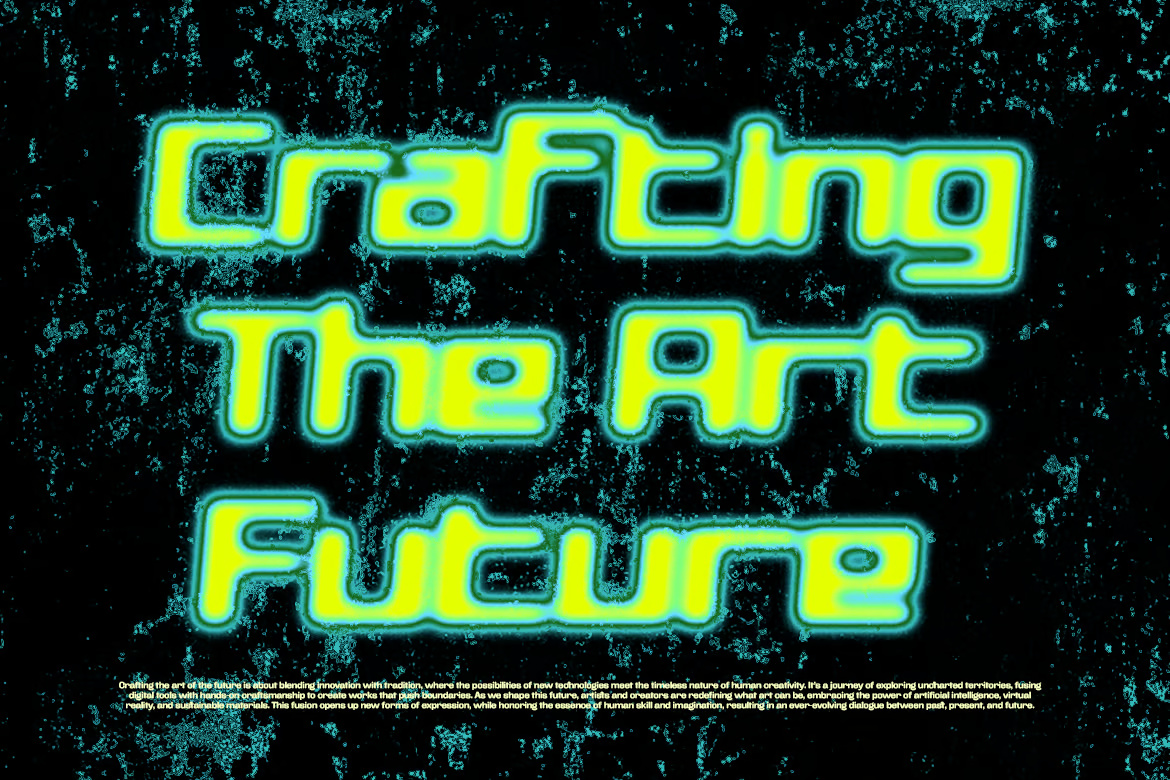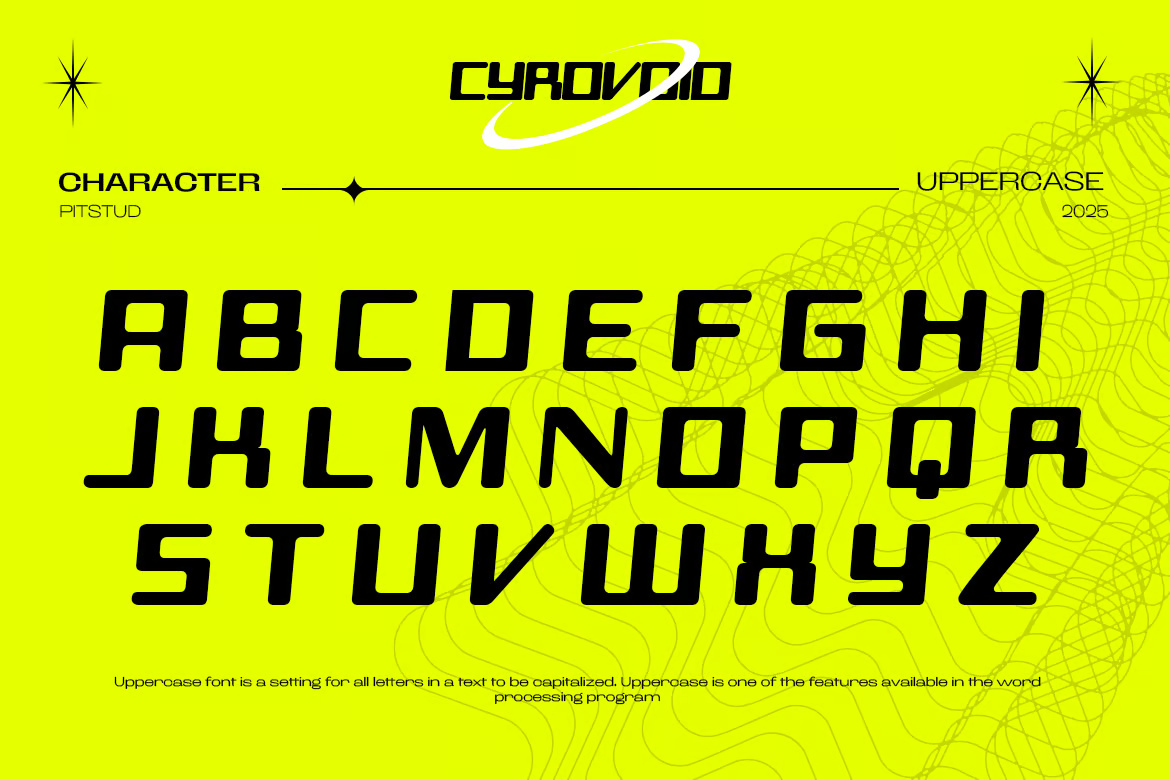
Cyrovoid – Futuristic Tech Font
Cyrovoid is a premium futuristic tech font meticulously designed to infuse your projects with a cutting-edge, cyberpunk aesthetic. With its modern geometric precision, sleek digital-inspired elements, and bold, high-tech letterforms, this font exudes innovation and sophistication. Perfect for logos, branding, marketing materials, packaging, UI/UX designs, and digital applications, Cyrovoid adds a sleek, stylish, and professional touch to any project. Its sharp angles and clean lines make it an excellent choice for futuristic themes, sci-fi visuals, and technology-driven concepts.
Cyrovoid – Futuristic Tech Sans-Serif Font
Cyrovoid - Futuristic Tech Font